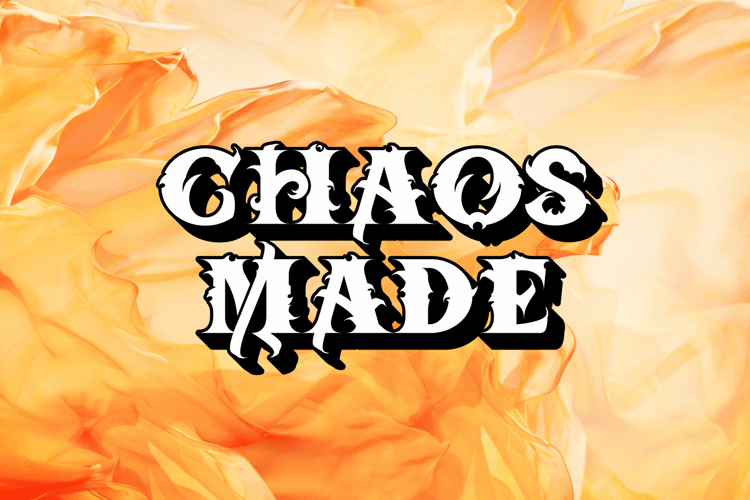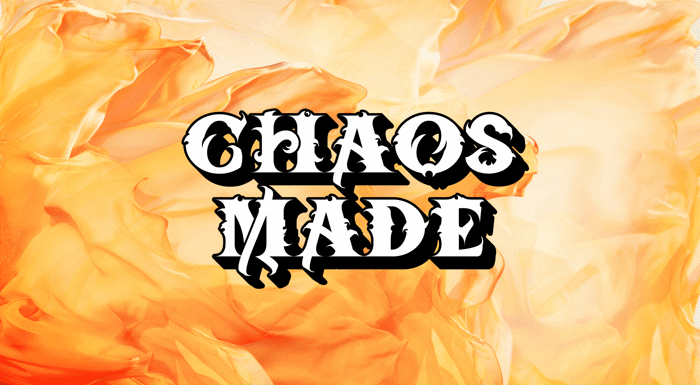
BTX Chaos Made Font
About BTX Chaos Made Font
-Shadow Regular Style
A modern GOthic 2-part font. Striking and bold, yet elegant.
You can stack the 2 fonts together, or use the regular style by itself.